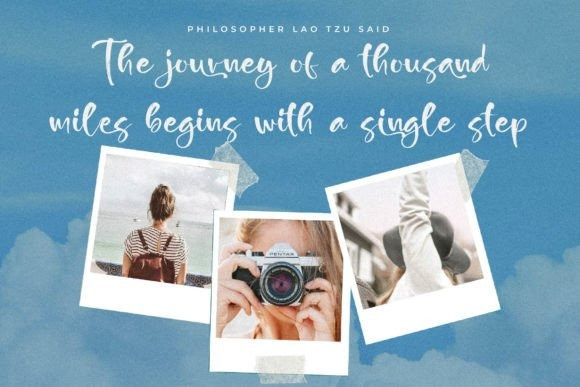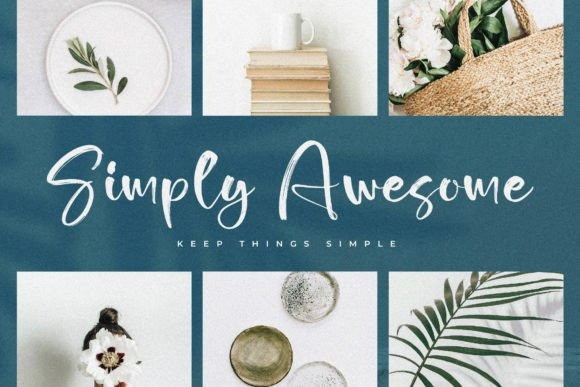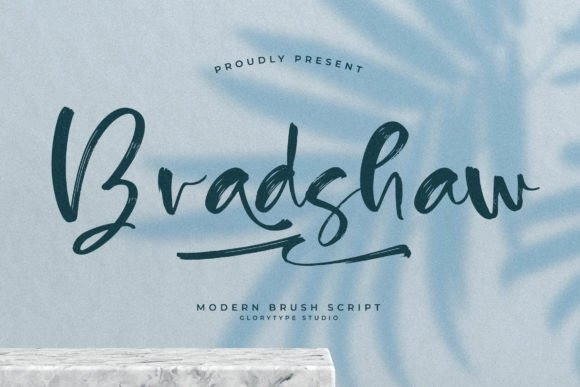
Bradshaw Font
Bradshaw Brush Font is a lovely and timeless handwritten font. It is the best choice for creating eye catching logos, branding and quotes. Every letter has a unique and beautiful touch, which will make your design come alive!